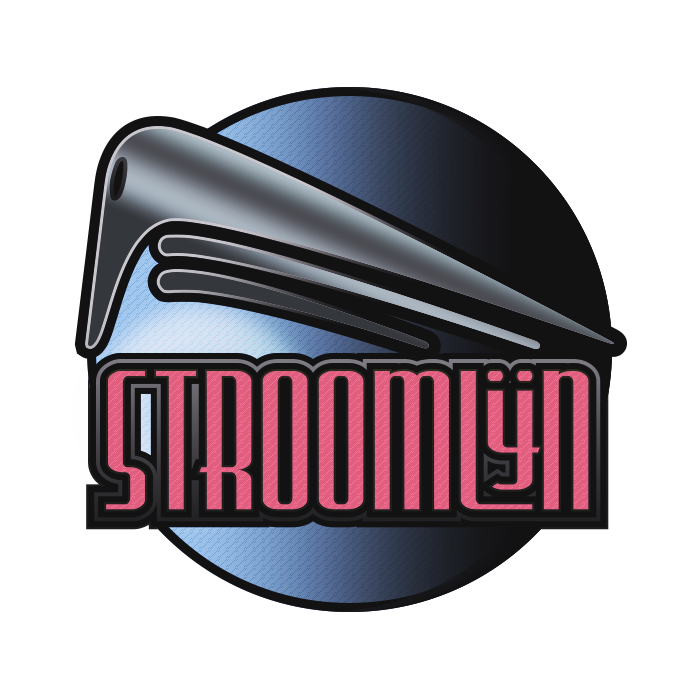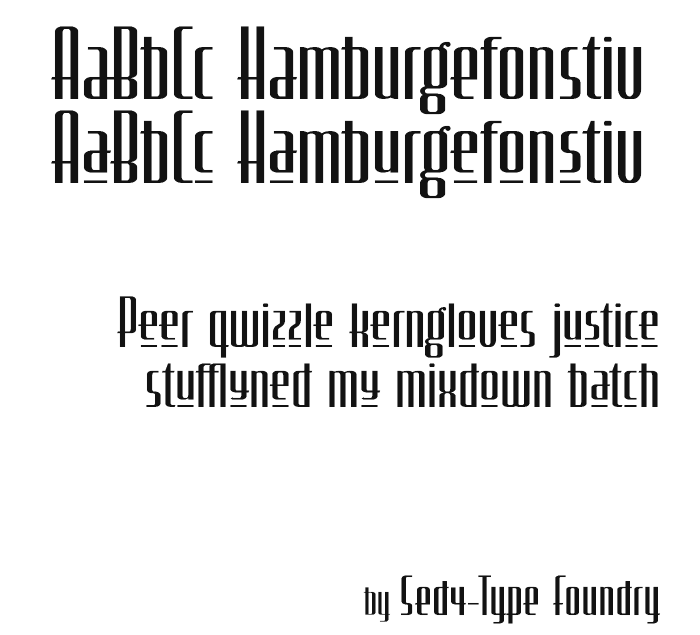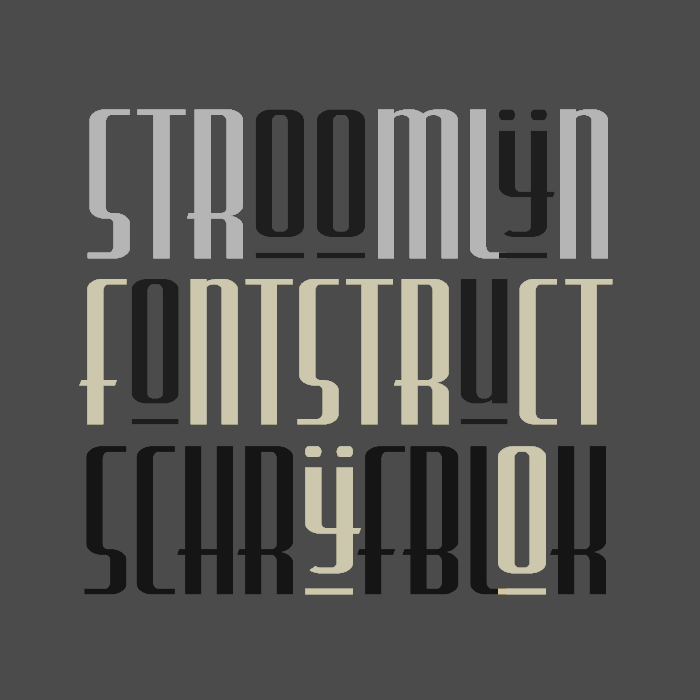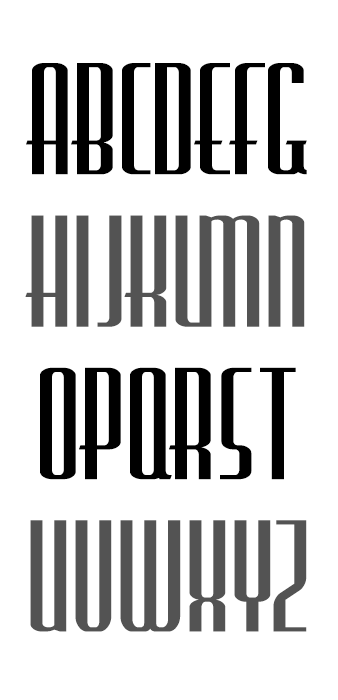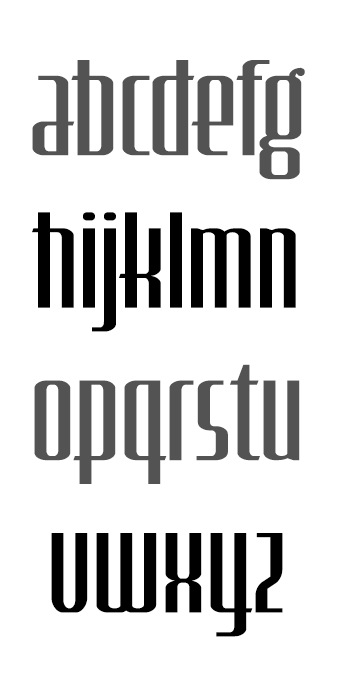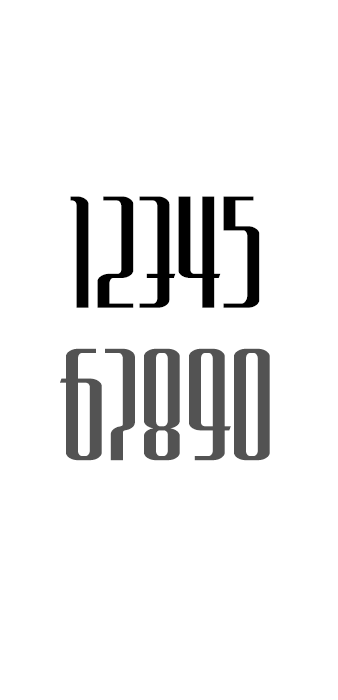
STF_STROOMLIJN - A tall condensed and streamlined art deco typeface.
neat designs, i love the g and t
Lots of new characters added, many characters have been further optimized and added kerning.
Sorry, I missed this one. Interesting tall font. Looking at it, I think some kern is needed, IMHO. E.g.: on the right side of the L or the F, and in pairs like ae or rt (not in rf, curiously)...
I made some changes to a number of pairs and glyphs, I don't know if that was what u invisioned, but I think it improved overall spacing..